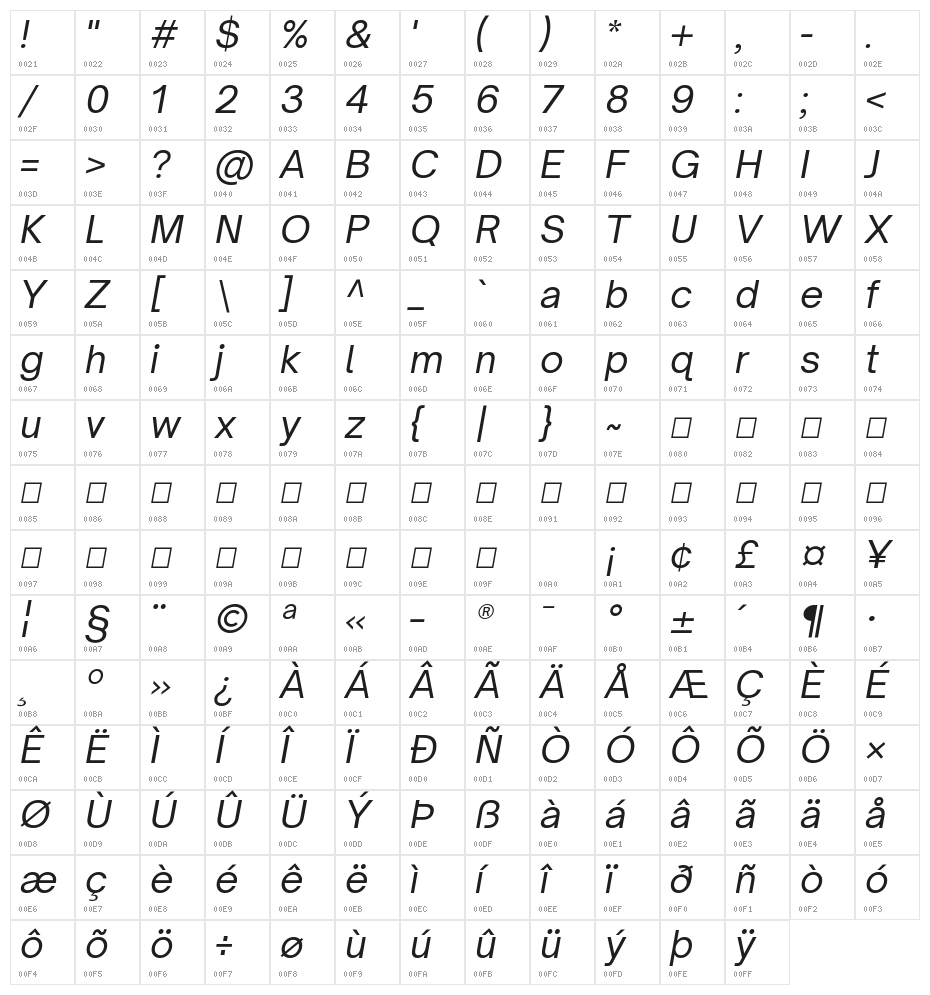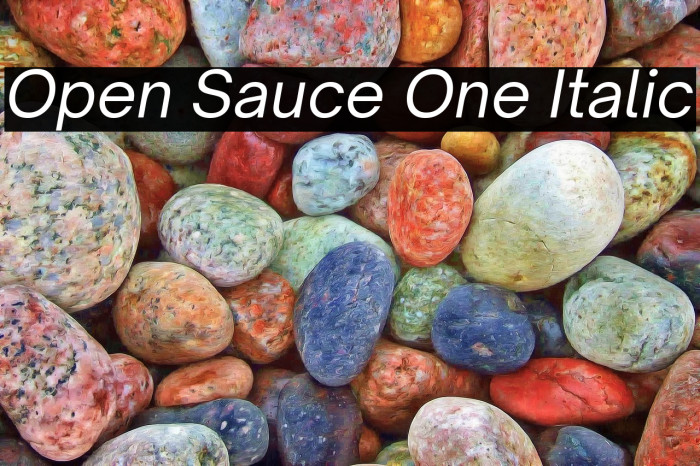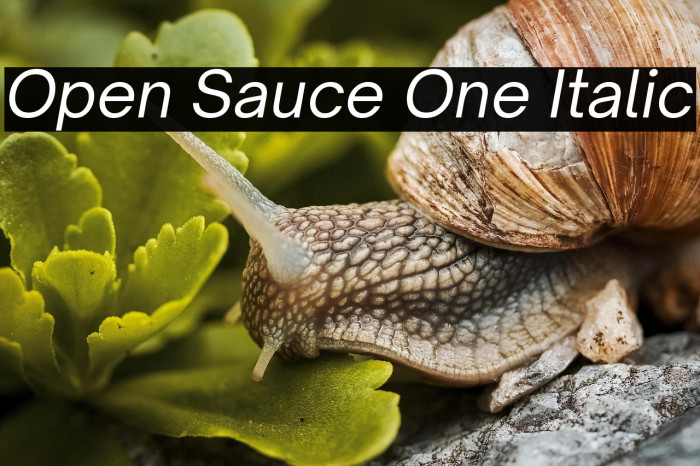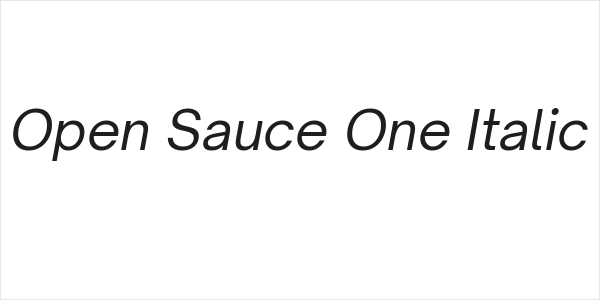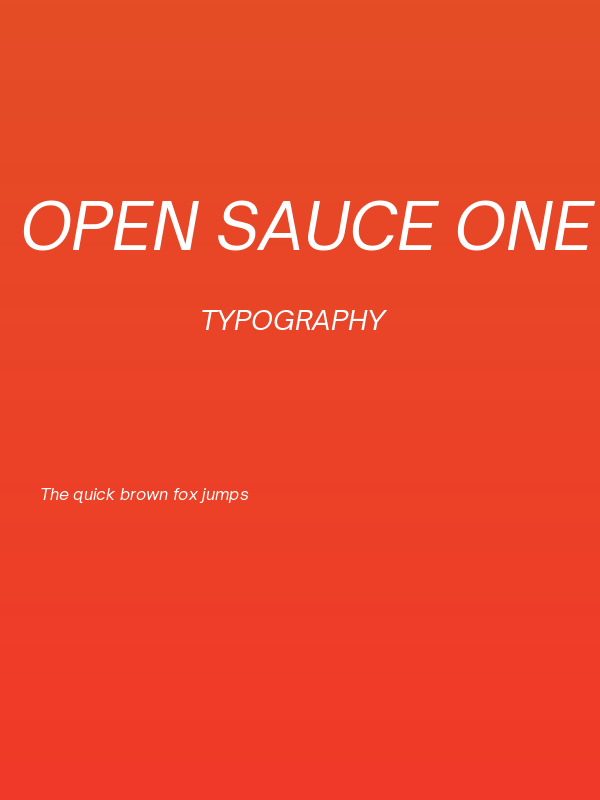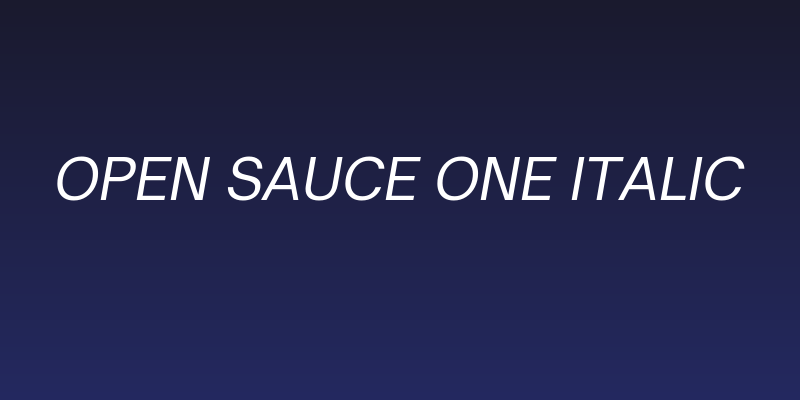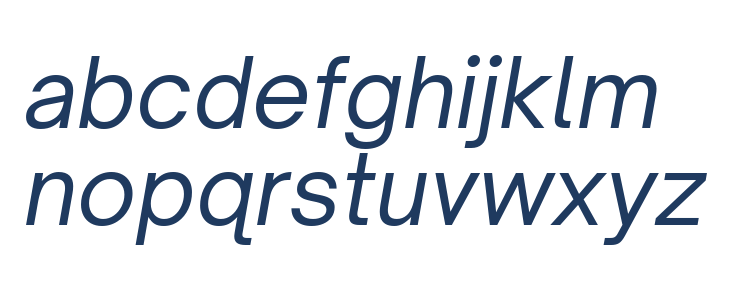
Open Sauce One Italic Font
Open Sauce One Italic Description
This font features a sleek, modern design with a slight slant, giving it an italicized appearance. The characters are clean and well-defined, with a consistent stroke width that maintains readability across various sizes. The uppercase and lowercase letters are proportionate, and the numerals are clear and distinct. The special characters are well-integrated into the overall design, ensuring versatility in usage. This font's style is suitable for both digital and print media, offering a contemporary look that can enhance visual appeal.